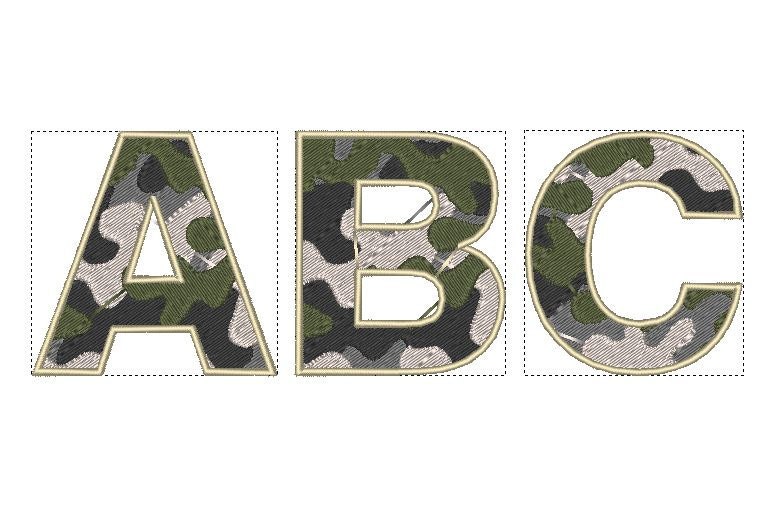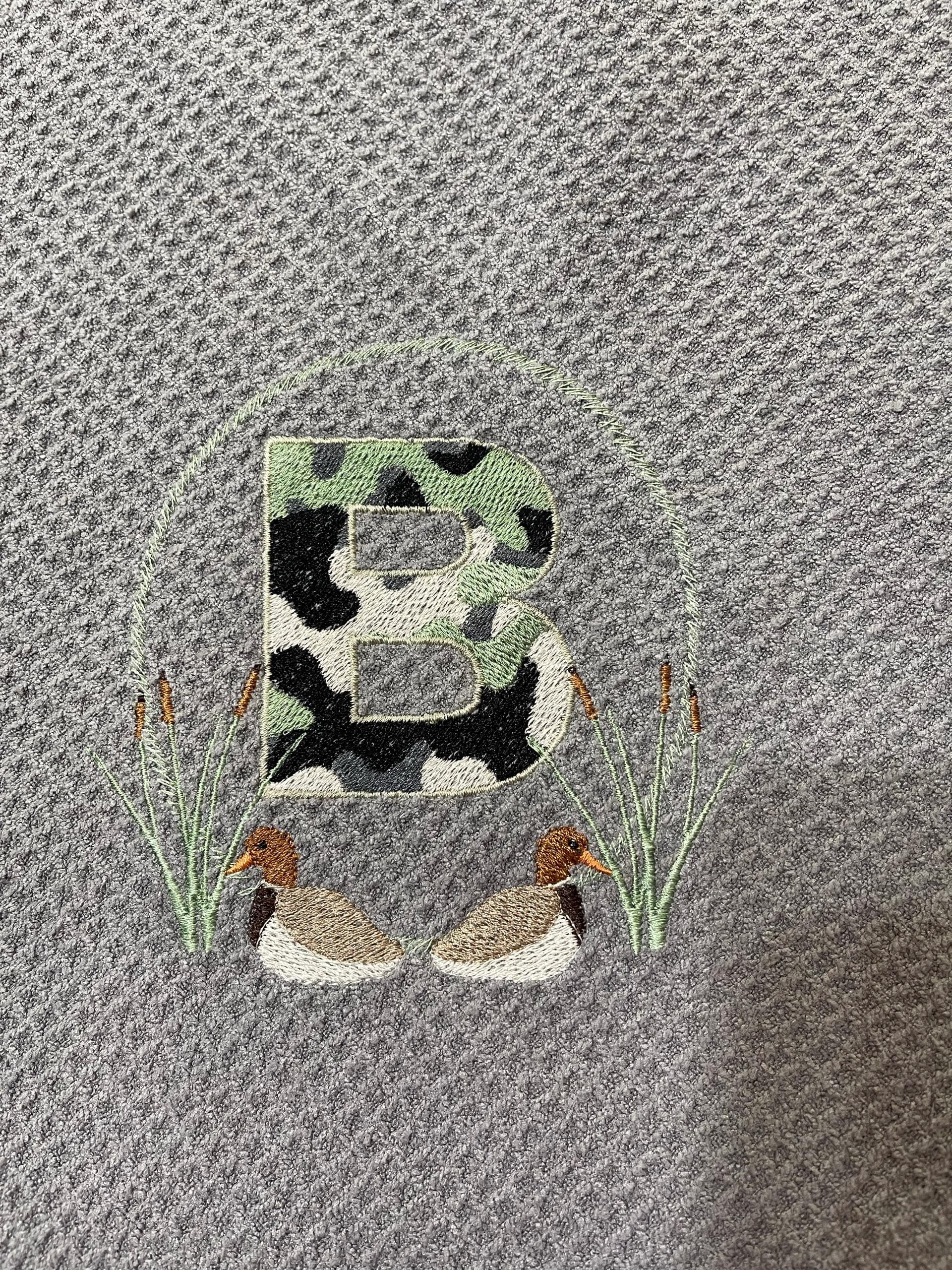
Camo, Camouflage Font machine embroidery designs INSTANT DOWNLOAD Letters A-Z and numbers 0-9, assorted sizes military army camouflage font
All letters have 5 colors
Ich hatte vor den Namen meines Sohnes damit zu schreiben. Mir war nicht klar, dass es so viele Stiche pro Buchstaben sind, daher war es für meinen Zweck nicht zu gebrauchen. Das Design ist allerdings viel schöner als bei anderen Anbietern.